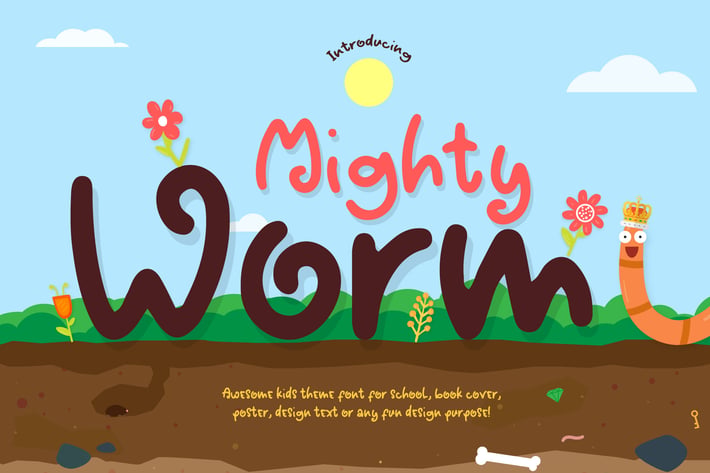
Mighty Worm Font
Introducing Mighty Worm
Our new font Mighty Worm Fon is a bold display font, the font style is fun, cute, cartoon, playful and user friendly.
Mighty Worm Font is one of the best choice for your design projects, including : headline, flyer, cd cover album, quotes, business card, branding, magazines, social media, advertisements, product designs, logo, poster design, t-shirt, or other.